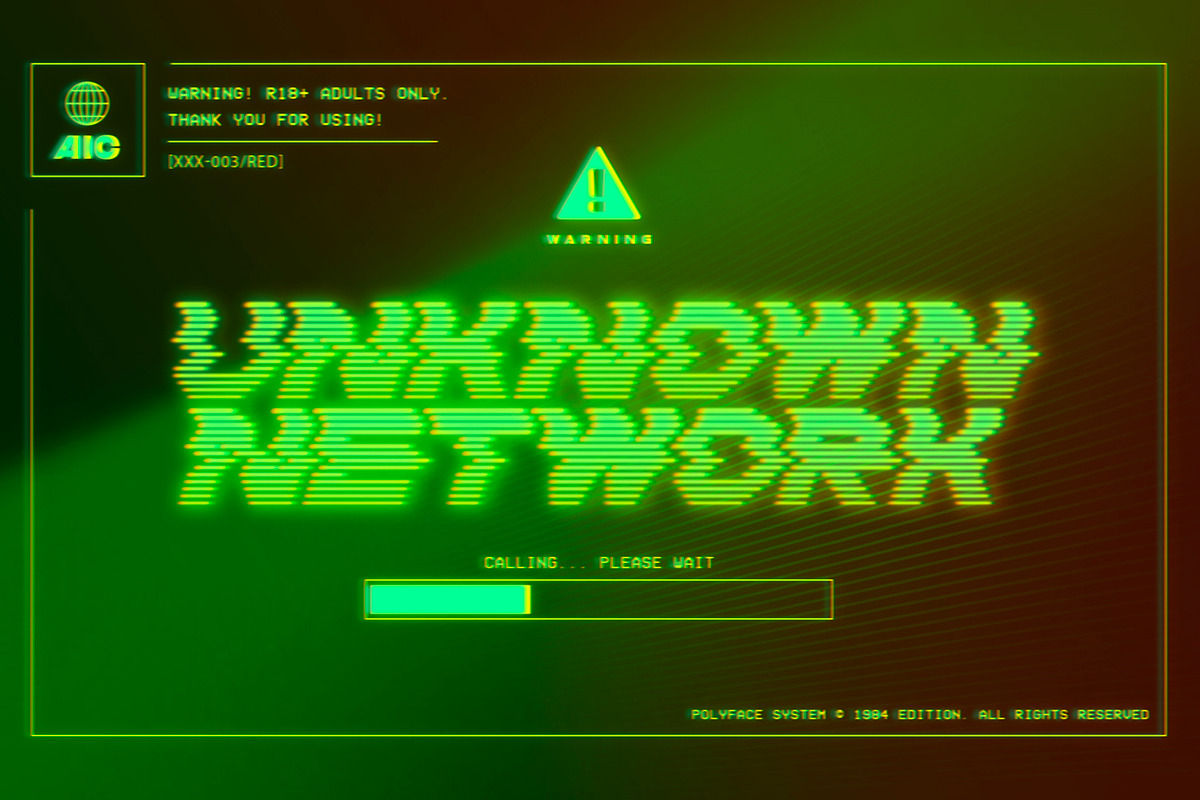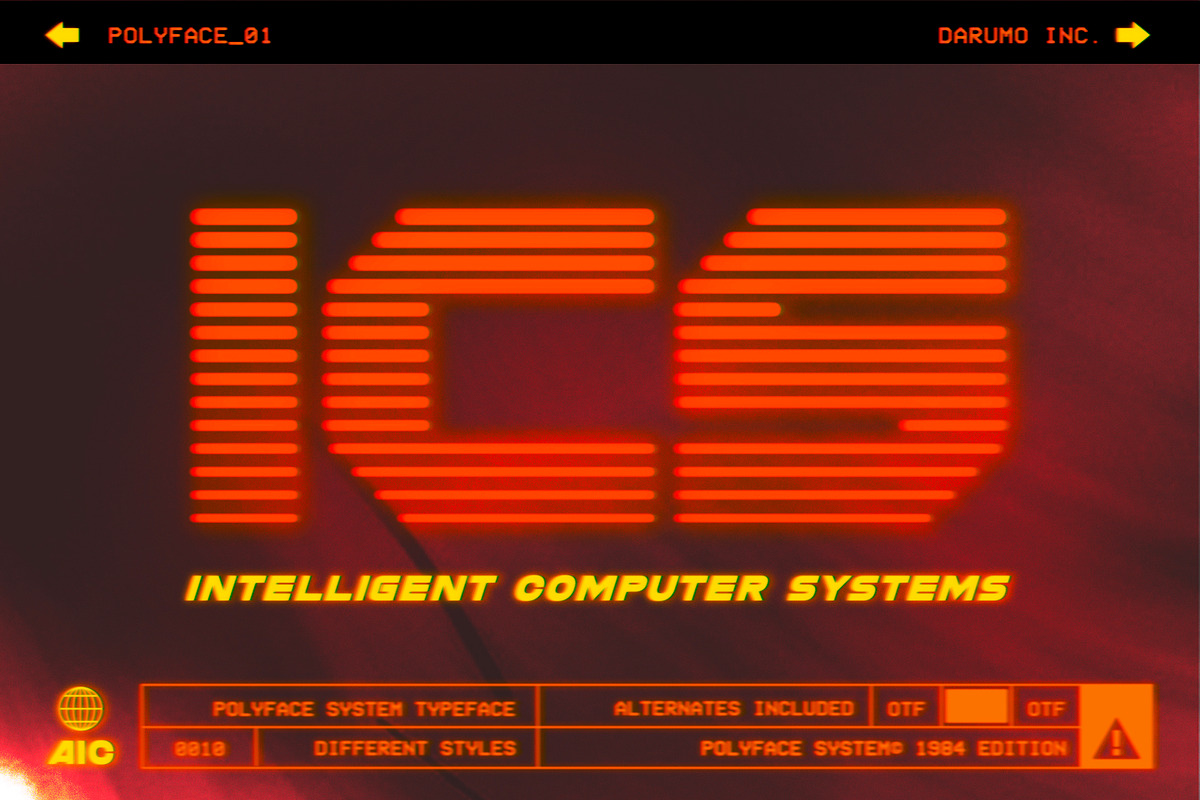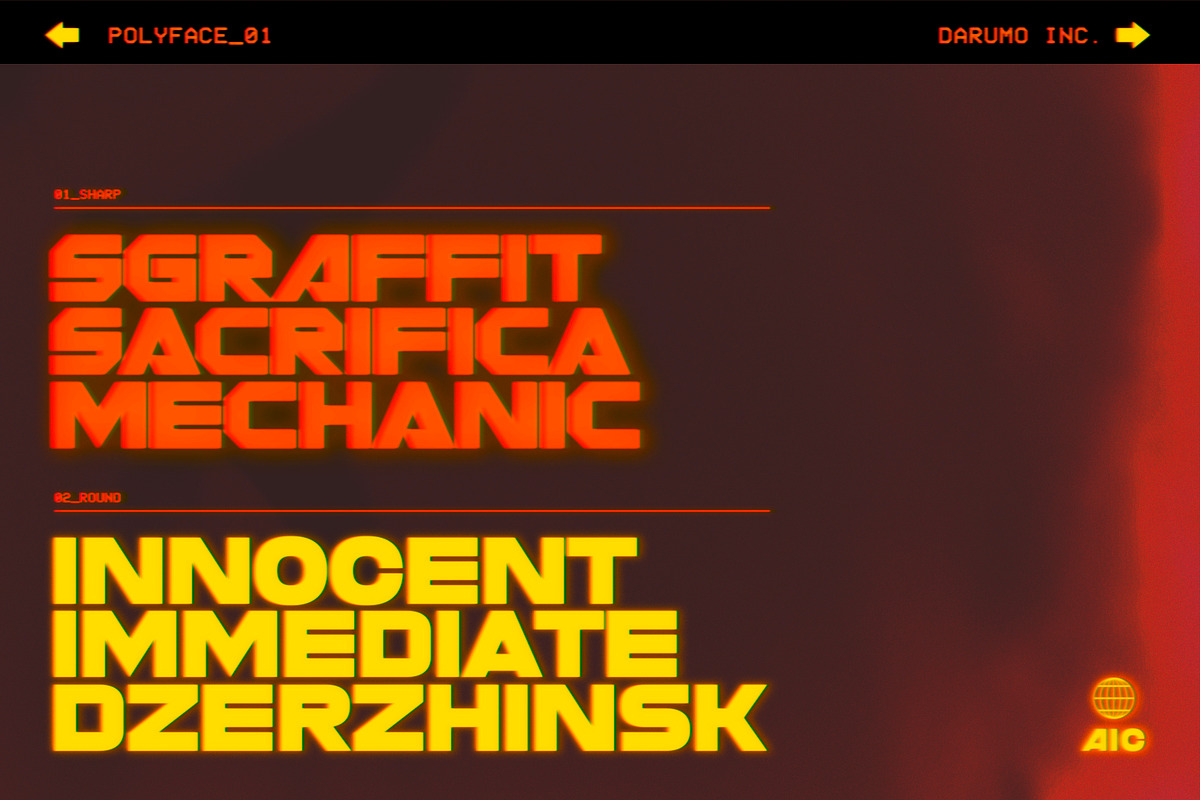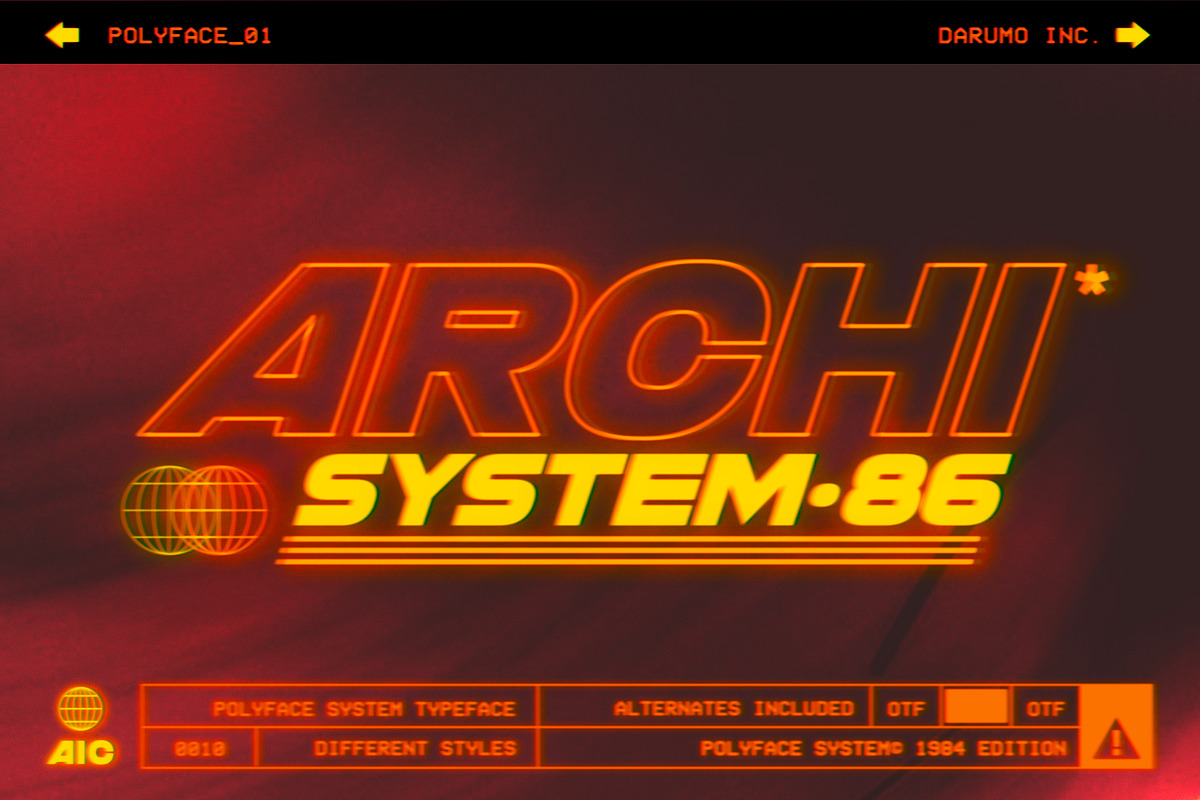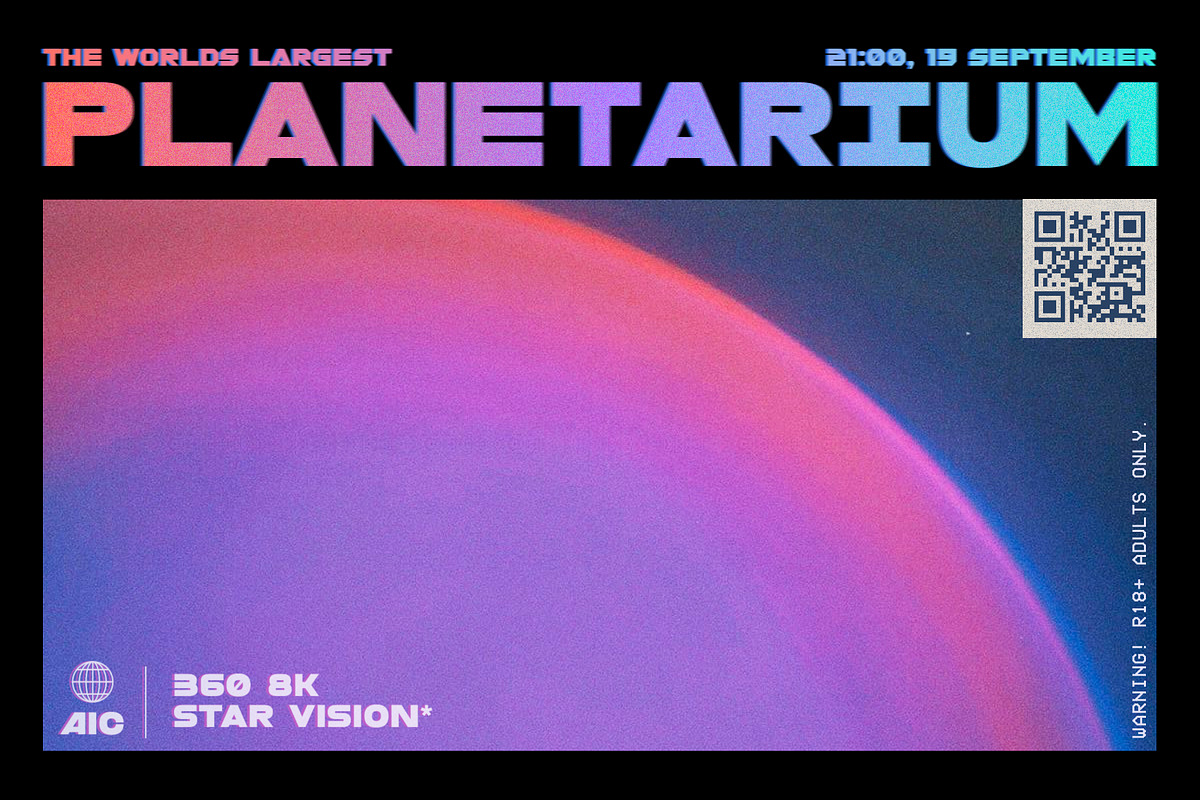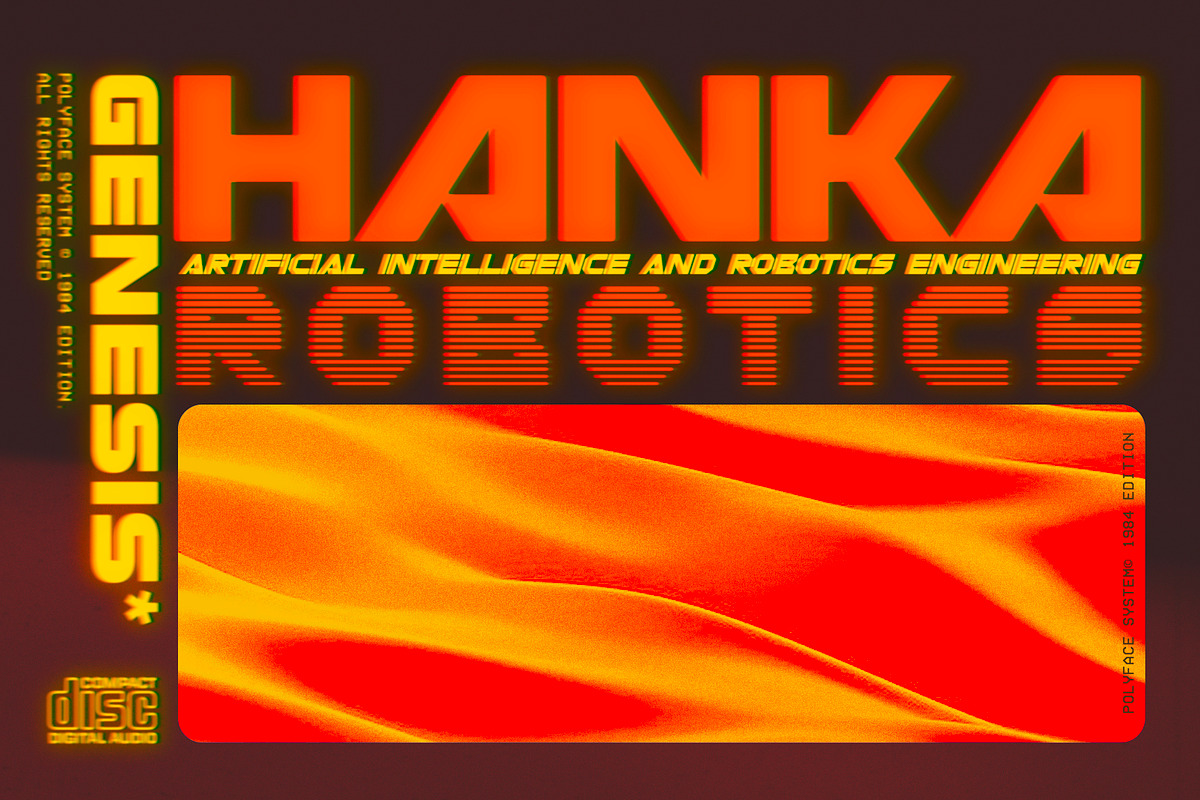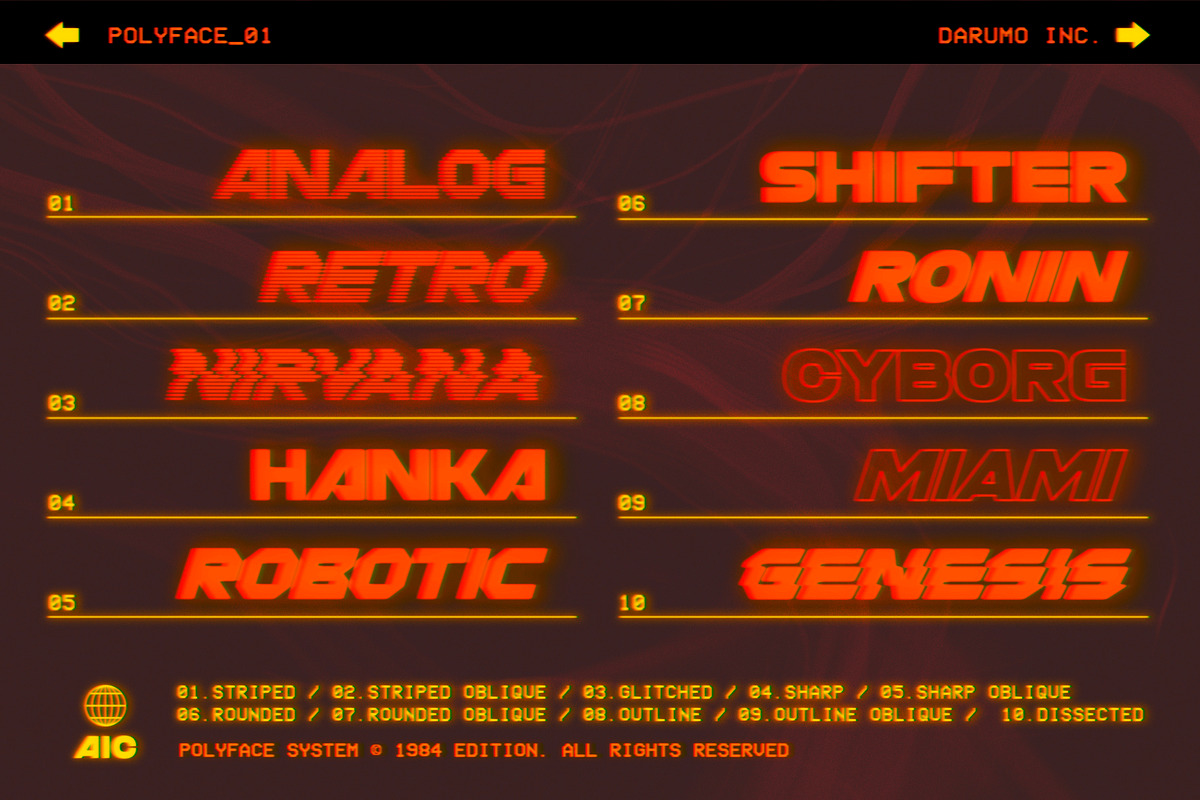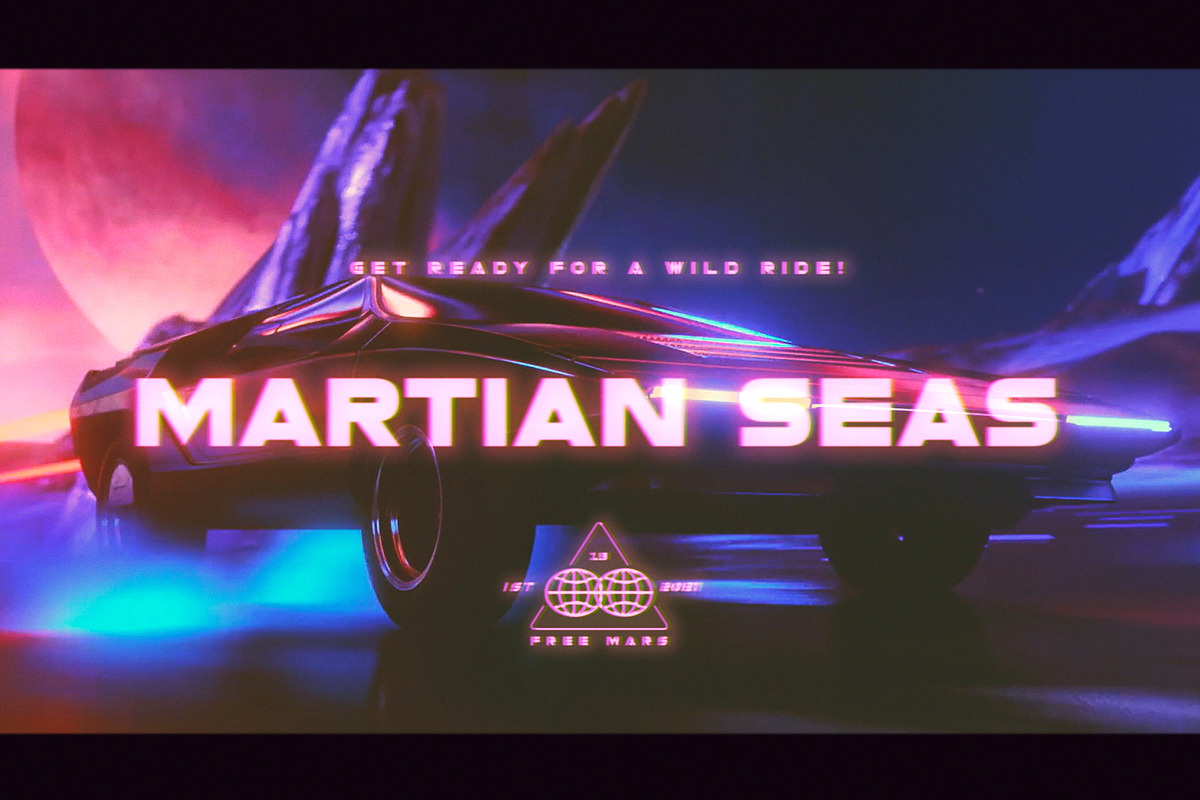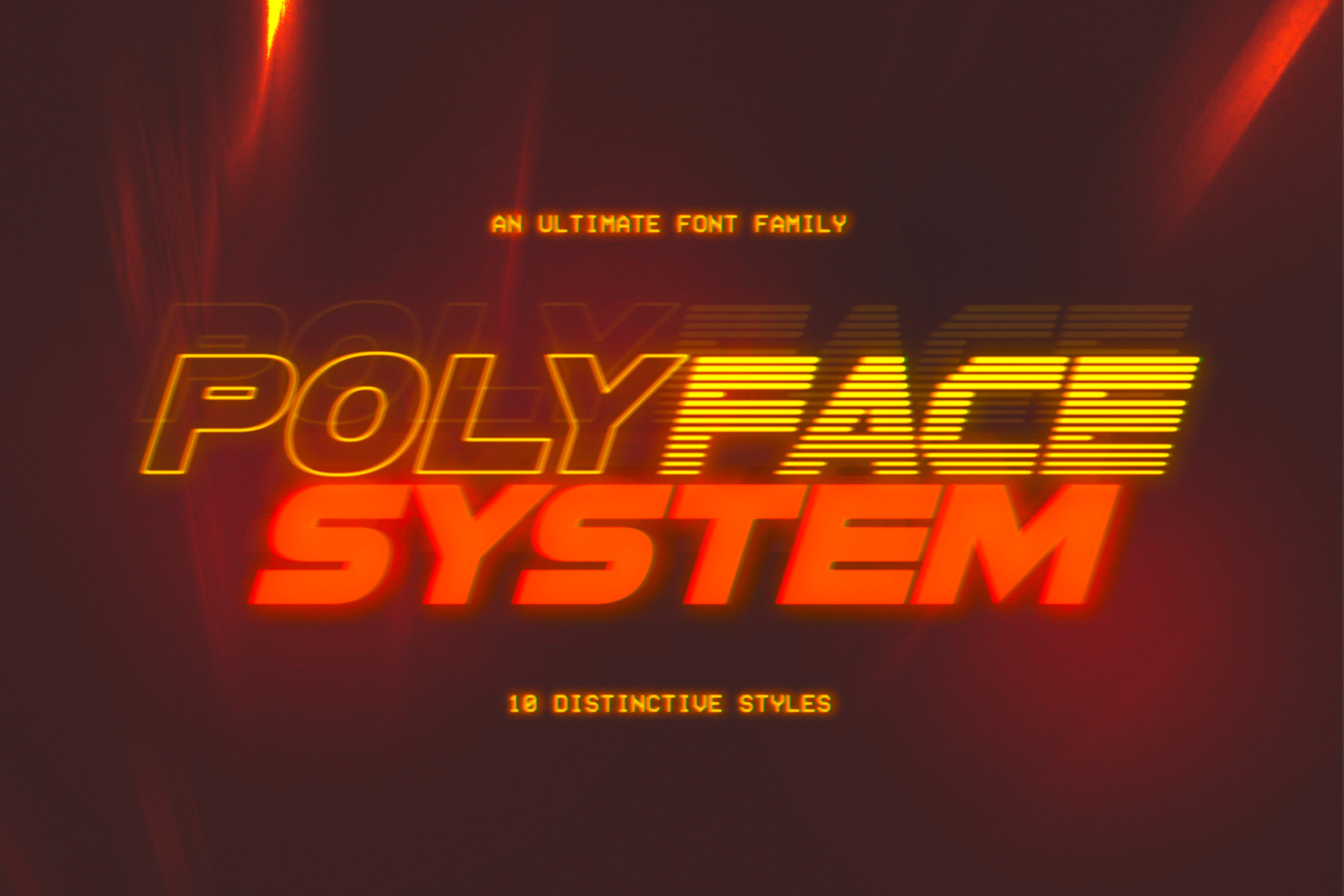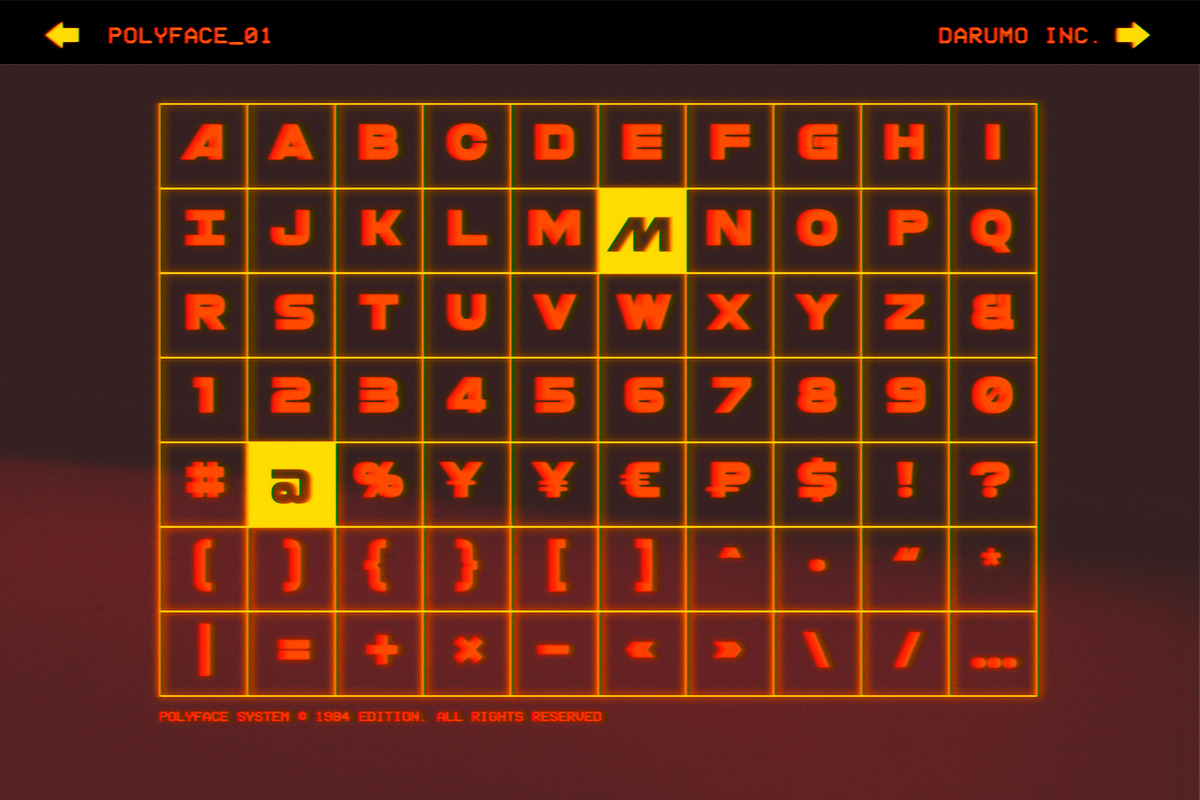
Polyface System Font
Behold! The mega-ultimate solution for your design is here. One font - ten faces. The system is working perfectly. This font is inspired by the 80's sci-fi aesthetic. It has the spirit and boldness of this time period. Despite this fact, the font can be used in various styles and genres because it is based on a versatile and concise geometry. This font is best used for catchy headlines, it was created specifically for this purpose. Music album covers, sports events, logo design, packaging design, poster design - these are some of the possible uses of this font. Try it yourself. We're sure you'll love it.